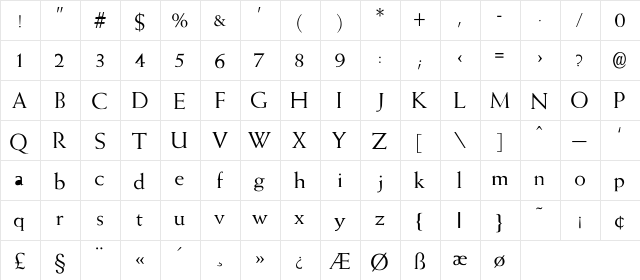
Amity-Normal Regular
Design Context for Amity-Normal Typeface
Amity-Normal offers clean, dependable letterforms without strong stylistic allegiance, making it a practical choice for designers who need flexibility.